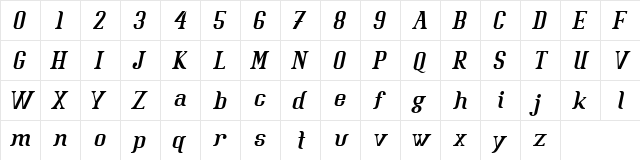
Batavia Glamore BOLD ITALIC Bold Italic Font Preview
Design Context for Batavia Glamore BOLD ITALIC Typeface
Batavia Glamore BOLD ITALIC offers clean, dependable letterforms without strong stylistic allegiance, making it a practical choice for designers who need flexibility. Its italic angle brings a sense of urgency and motion to the letterforms. The heavy weight commands attention and anchors typographic hierarchies.
Pro Tip: Try Batavia Glamore BOLD ITALIC for annotation and caption copy alongside an upright companion — the contrast in angle creates a dynamic but ordered typographic system.